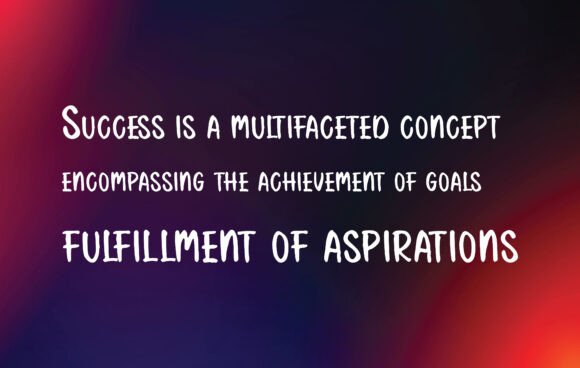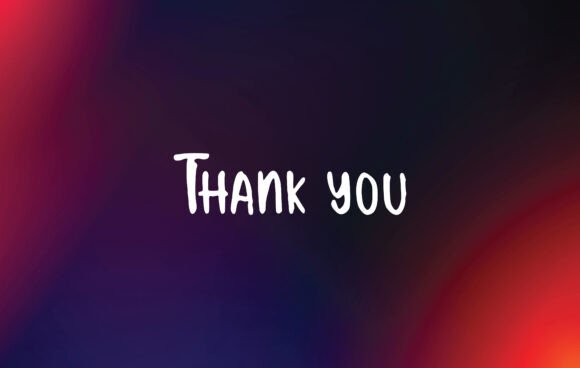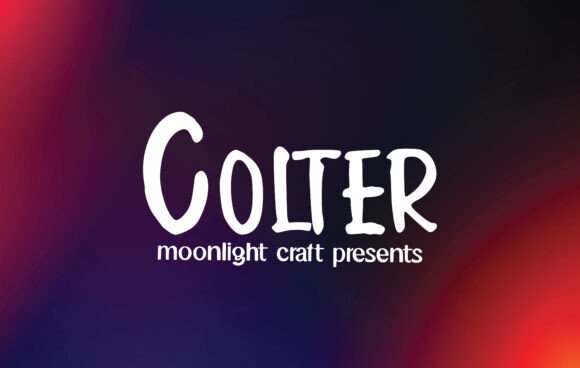
Introducing Colter Font: Elevate Your Creative Projects with Elegance
Are you on the hunt for a font that can transform your creative ideas into stunning visual masterpieces? Look no further than Colter Font, a lovely and beautiful handwritten font designed to take your designs to new heights. With its unique charm and versatility, Colter Font is the perfect choice for designers, crafters, and anyone looking to add a touch of elegance to their projects.
The Beauty of Colter Font
Colter Font boasts a distinctive handwritten style that exudes warmth and sophistication. Its flowing lines, delicate curves, and carefully crafted letterforms make it a joy to use in a variety of design applications. Whether you’re creating eye-catching logos, branding materials, or inspirational quotes, Colter Font is sure to impress.
Why Choose Colter Font?
So, what sets Colter Font apart from other fonts on the market? Here are just a few reasons why designers and crafters love working with this beautiful font:
- Unparalleled Versatility: Colter Font can be used in a wide range of design projects, from elegant logos and branding materials to social media graphics, posters, and more.
- Ease of Use: With its clear and legible letterforms, Colter Font is easy to read and works beautifully in both digital and print formats.
- Customization Options: Colter Font can be easily customized to fit your unique design needs, making it perfect for creating one-of-a-kind projects.
- High-Quality Design: Colter Font is designed with precision and attention to detail, ensuring that your projects look professional and polished.
Colter Font is a dream come true for designers and crafters who want to add a personal touch to their projects. Whether you’re creating:
- Logos and Branding Materials: Use Colter Font to create stunning logos, business cards, and other branding materials that showcase your unique style.
- Social Media Graphics: Add a touch of elegance to your social media graphics, including Facebook posts, Instagram stories, and Twitter headers.
- Posters and Flyers: Create eye-catching posters and flyers that grab attention and leave a lasting impression.
- Quotes and Inspirational Content: Use Colter Font to create beautiful quote graphics, inspirational posters, and more.
Tips for Getting the Most Out of Colter Font
To unlock the full potential of Colter Font, here are a few tips to keep in mind:
- Experiment with Font Sizes: Colter Font looks great in a variety of font sizes, so don’t be afraid to experiment and find the perfect size for your project.
- Play with Color: Colter Font works beautifully in a range of colors, from bold and bright to soft and pastel.
- Add Texture and Patterns: Add texture and patterns to your designs to give them an extra layer of depth and interest.
Colter Font is a beautiful and versatile handwritten font that’s perfect for designers, crafters, and anyone looking to add a touch of elegance to their projects. With its unique charm, ease of use, and high-quality design, Colter Font is sure to become a go-to font in your design arsenal. So why wait? Download Colter Font today and start elevating your creative projects to new heights!